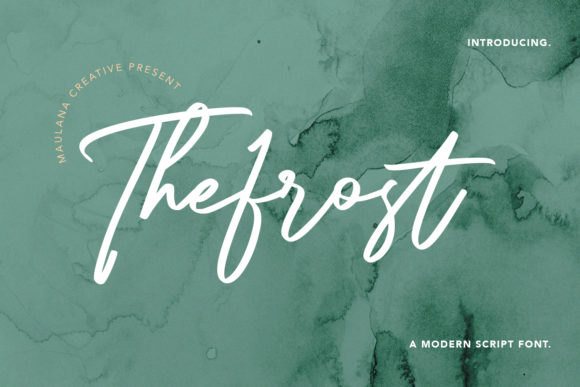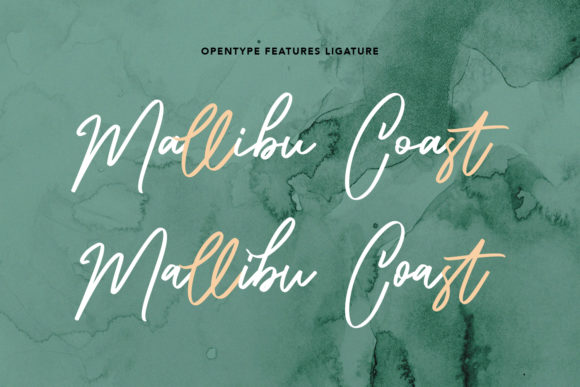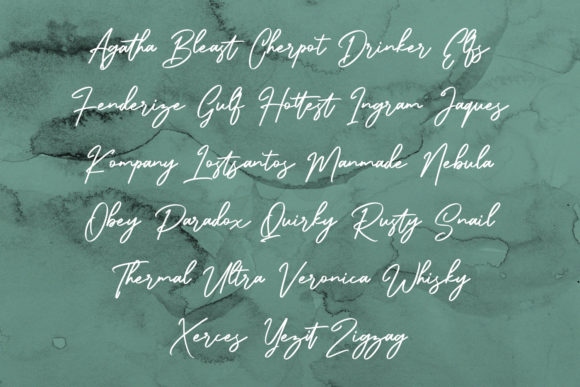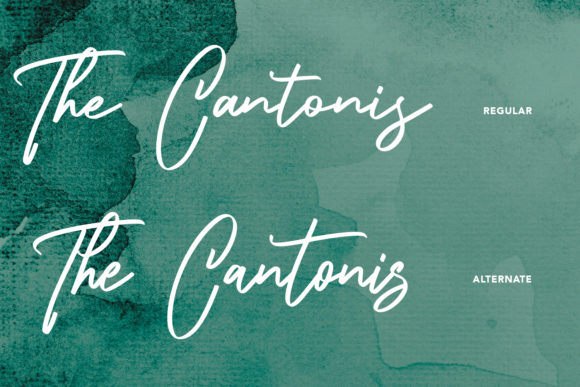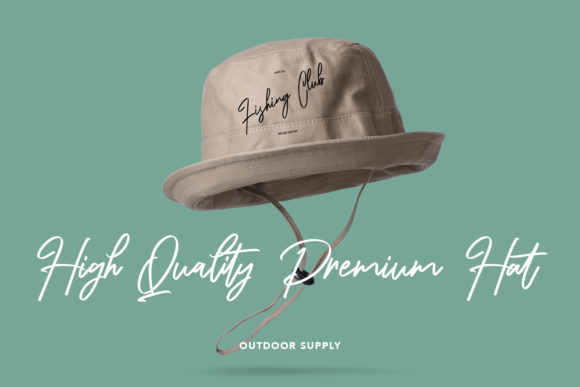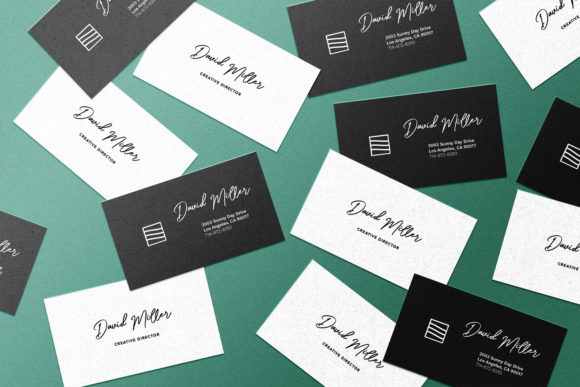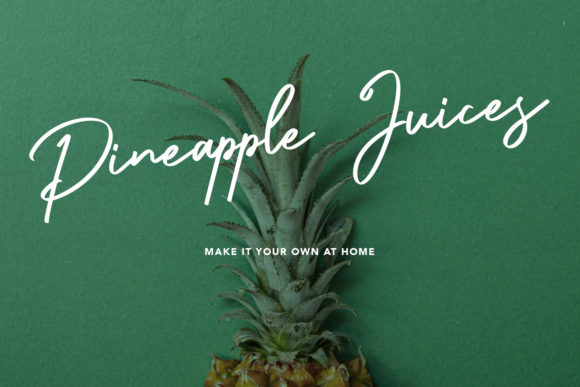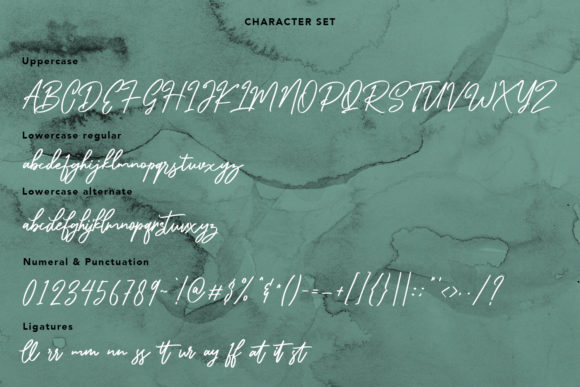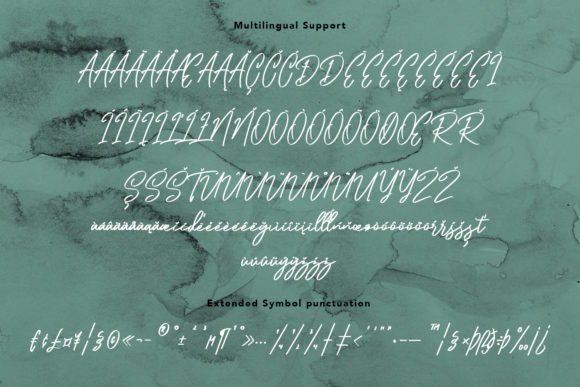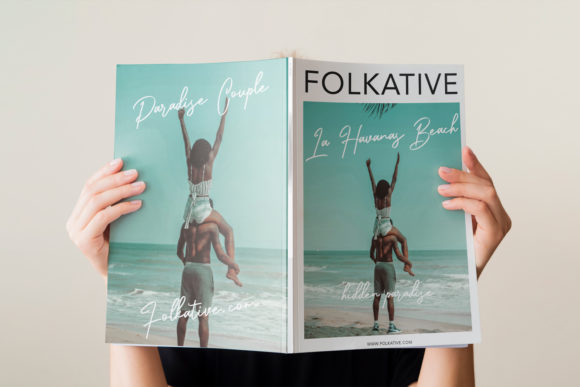
The Frost Modern Script Font
About The Frost Modern Script Font
Thefrost is a modern handwritten font that will add an authentic handcrafted feel to your designs. With its unique and versatile style, this font is perfect for a wide range of projects and can bring a sense of creativity and warmth to your work.
Modern Handwritten Style: Thefrost’s contemporary handwritten style is both trendy and timeless. Its natural flow and irregular letterforms give it a genuine handcrafted appearance that is sure to resonate with audiences seeking a personal and authentic touch.
Versatility for Various Projects: Whether you’re designing logos, branding materials, social media graphics, posters, invitations, or any other creative project, Thefrost can adapt and enhance the visual appeal. Its flexibility allows it to complement both elegant and casual designs.
Authenticity and Warmth: Thefrost’s handcrafted feel exudes a sense of authenticity and warmth that can create a genuine connection with your audience. It adds a human touch to your designs, making them more relatable and approachable.
Creative and Artistic Vibes: Using Thefrost in your designs can evoke a creative and artistic atmosphere. The unique letterforms and irregular strokes add an element of originality and creativity that sets your work apart.
Perfect for DIY and Craft Projects: Thefrost is an excellent choice for DIY and craft projects, adding a handmade and personal touch. Whether you’re creating scrapbooks, journals, or crafting items, this font can elevate your creations with its artistic flair.
Easy to Read and Implement: Despite its handwritten appearance, Thefrost remains highly legible, ensuring that your message gets across clearly to your audience. Its user-friendly nature makes it easy to work with in various design software.
Trendy and Timeless: Thefrost’s combination of modernity and handwritten charm makes it both trendy and timeless. It can stay relevant for years to come, making it a reliable font choice for long-lasting design projects.
Digital and Print Applications: Thefrost works seamlessly in both digital and print applications. Whether it’s for web graphics, social media posts, or printed materials like business cards and flyers, this font brings a cohesive and authentic feel to your designs.
Invoking Emotions and Personal Connections: Thefrost’s handcrafted style has the power to evoke emotions and create personal connections with your audience. It can make your designs feel more approachable, engaging, and memorable.
In conclusion, Thefrost is a modern handwritten font that adds an authentic handcrafted feel to your designs. With its versatility and unique style, it can elevate a wide range of projects, from logos and branding to social media graphics and DIY creations. This font’s ability to invoke emotions and create personal connections with your audience makes it a valuable asset for designers seeking a creative and heartfelt touch in their work. Fall in love with Thefrost’s incredibly versatile style and use it to create spectacular designs that leave a lasting impact.